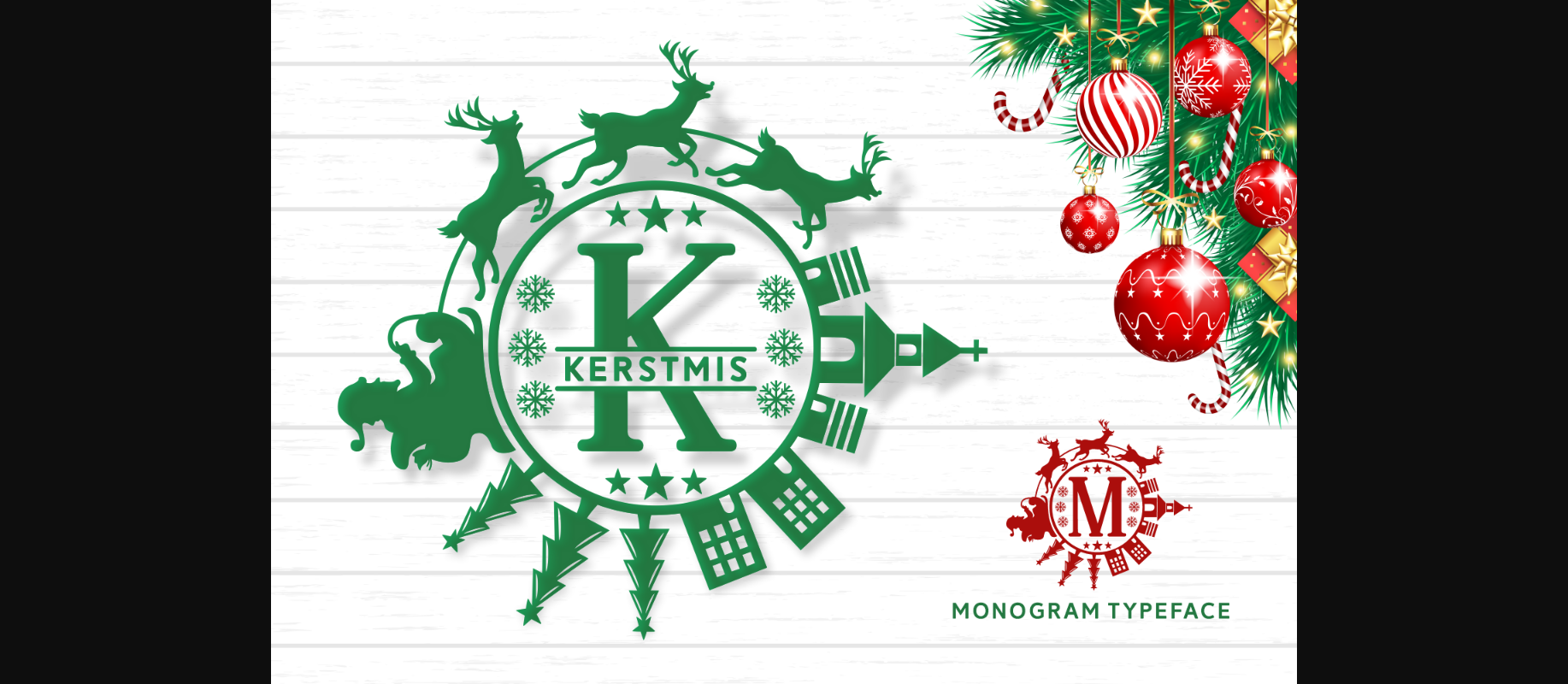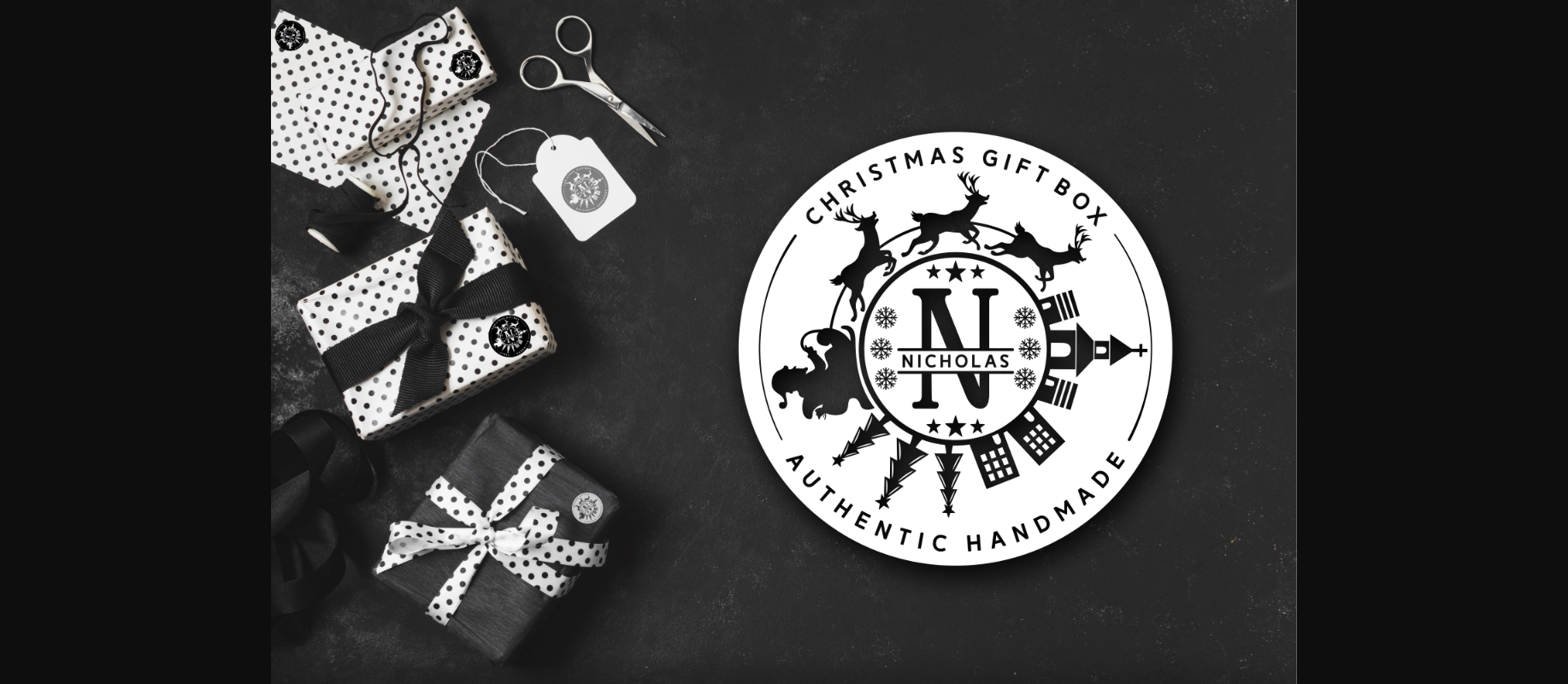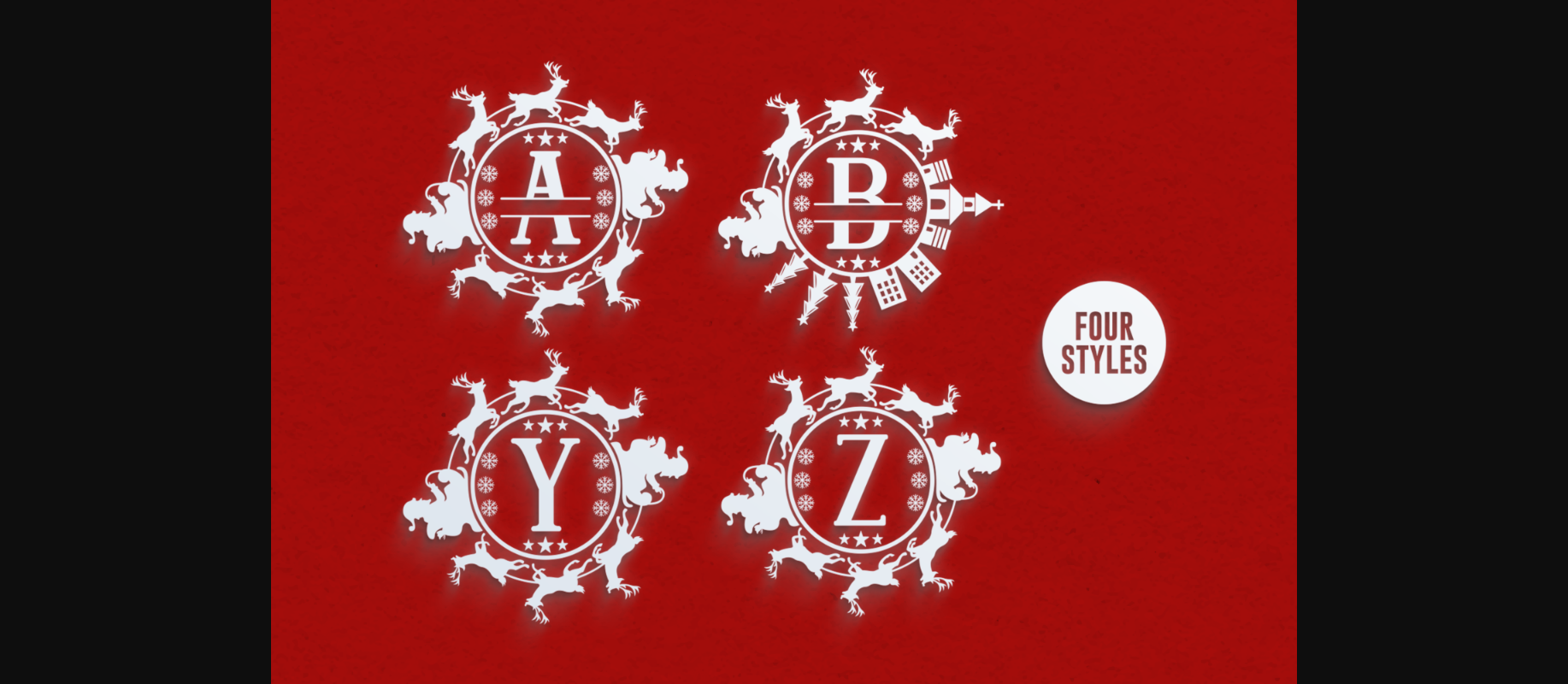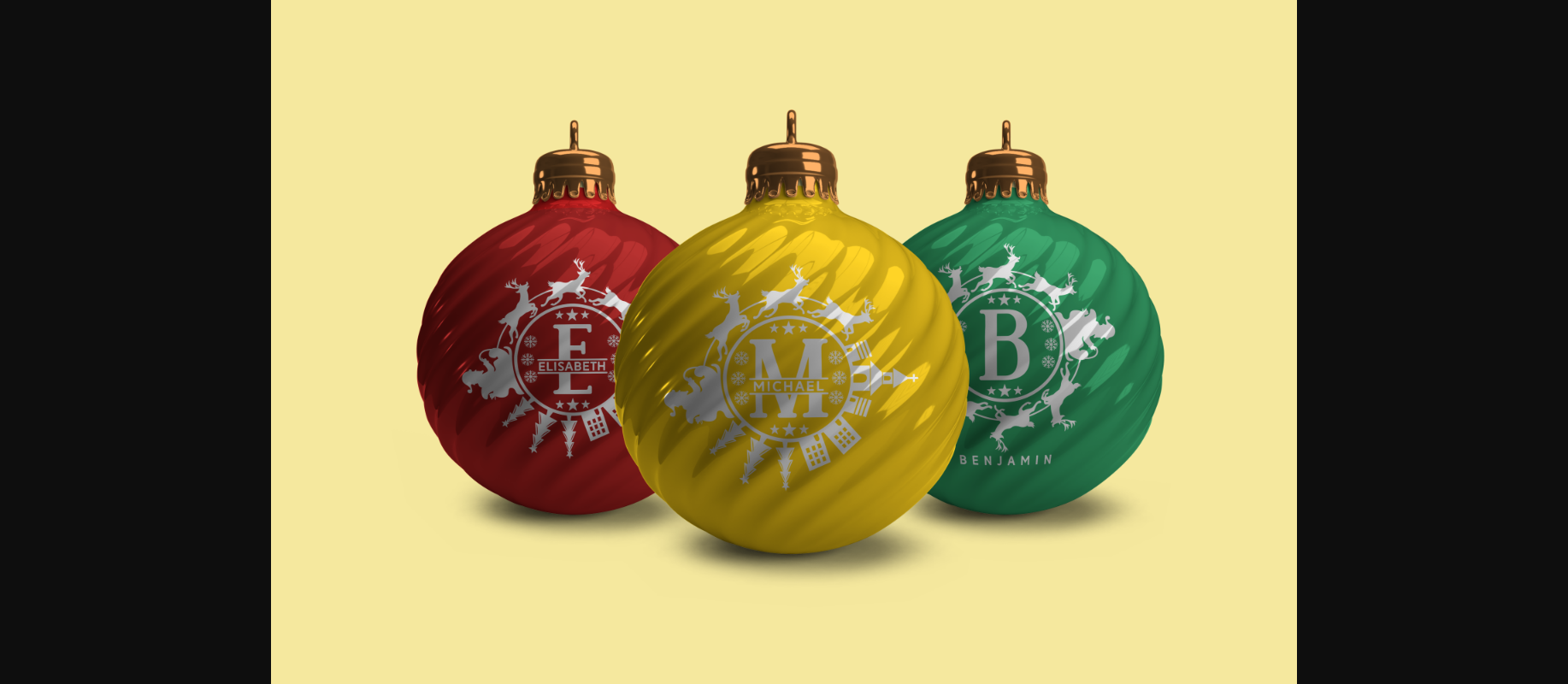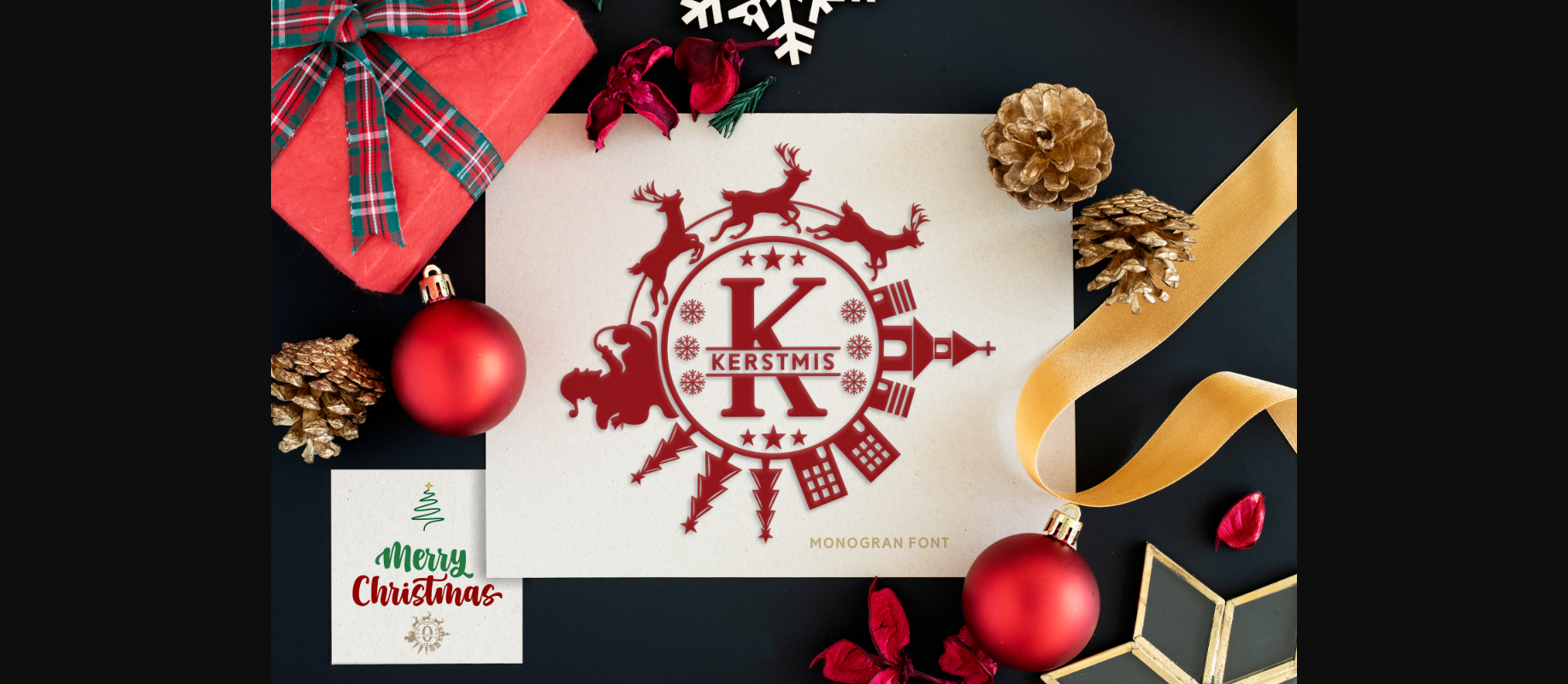
About Kerstmis Font
Kerstmis is a dainty and unique decorative font. Add this romantic and lovely looking font to each of your love letters, wedding invitations or favorite design ideas, and you will be astounded by the outcome.